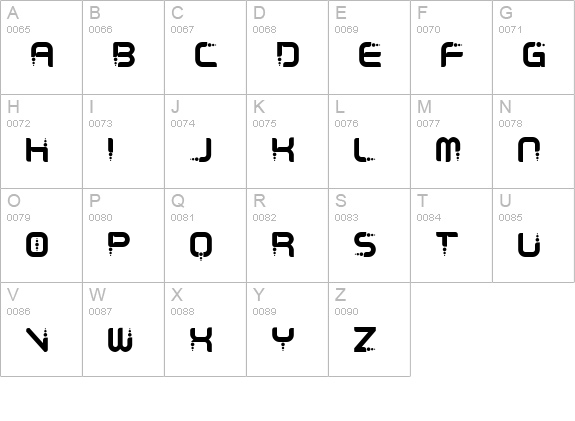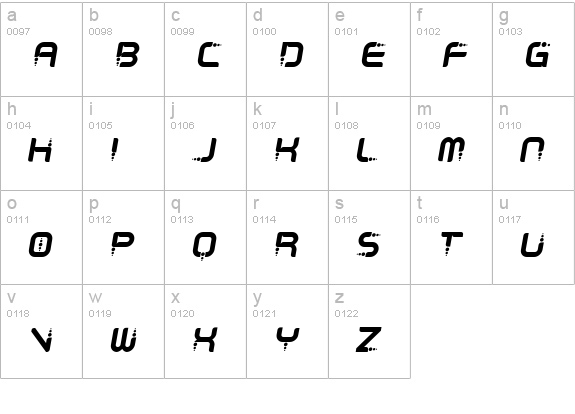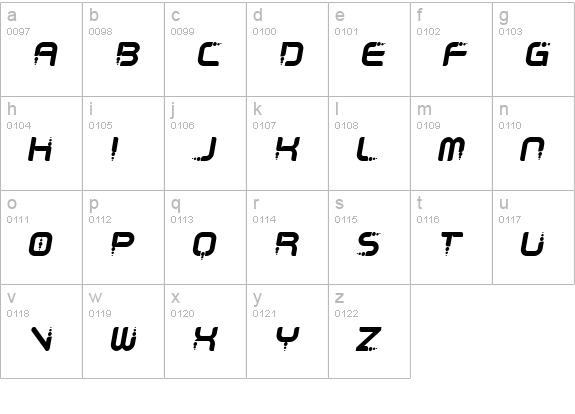
Despair Font Details
Introducing Despair font, a captivating typeface that beautifully captures the essence of melancholy and introspection. This unique font exudes a sense of sorrow and despair, making it perfect for projects that require a touch of emotional depth and drama. The elegant curves and intricate details of Despair font add a hauntingly beautiful quality to any design. Best of all, Despair font is available for free download at FontsMarket.com. Whether you're working on a personal project or a professional design, this exquisite font is sure to make a powerful impression. Embrace the emotional depth and artistic flair of Despair font in your next creative endeavor and watch your designs come to life with a touch of haunting beauty. Download Despair font today and let your creativity soar to new heights.